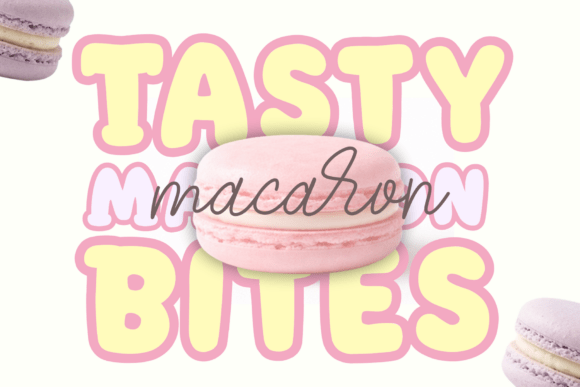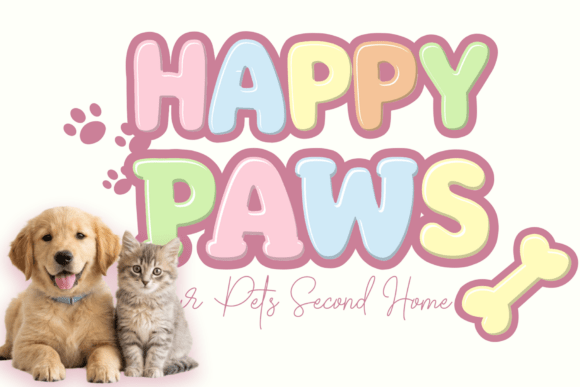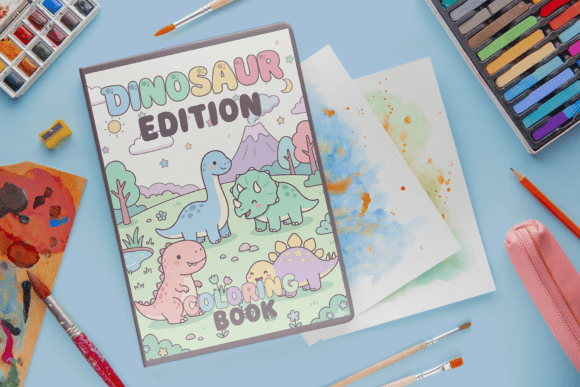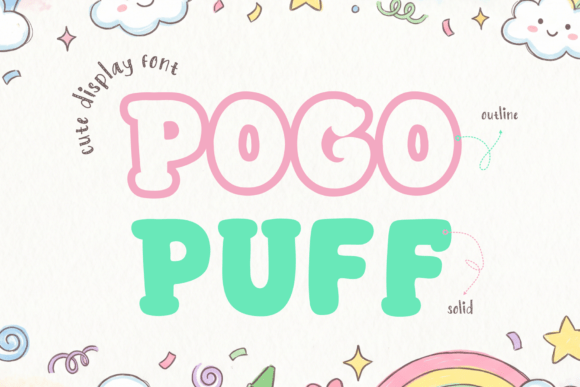
Introduction to Pogo Puff Font
Imbued with an engaging blend of whimsy and warmth, Pogo Puff is a brilliantly lively display font that goes beyond the ordinary.
This typeface seamlessly weaves in the spirit of fun and creativity, using rounded, soft letterforms that radiate a bubbly persona What sets this font apart is its duality, offering both solid and outline styles.
Key Features of Pogo Puff Font